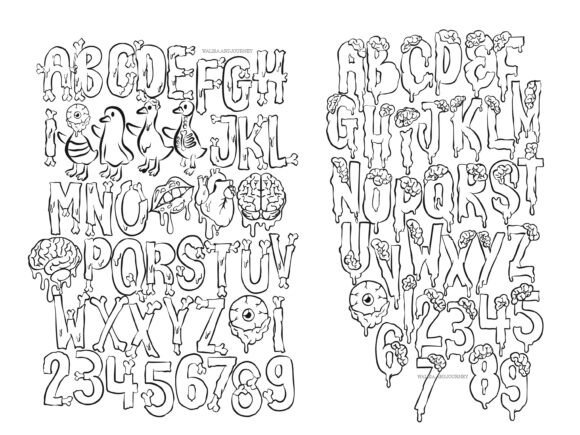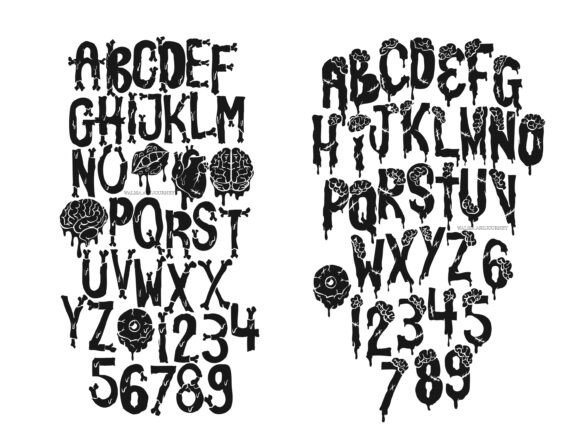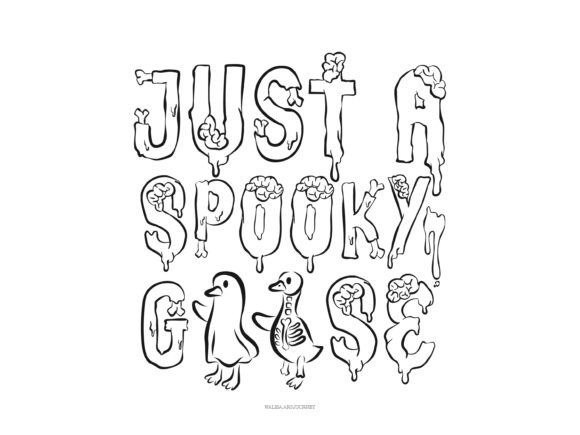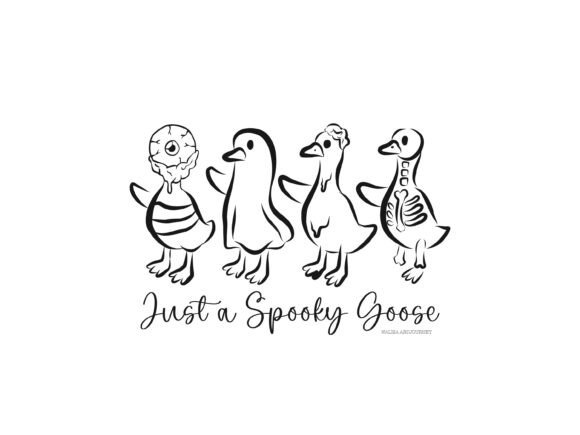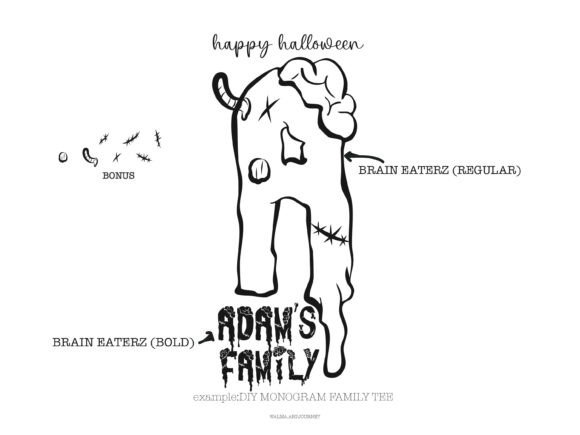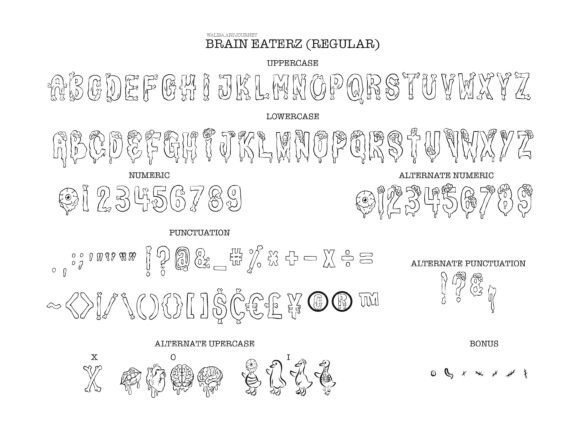
Introduction to Brain Eaterz Font
Brain Eaterz Alphabet Font is a hand-drawn, dripping zombie lettering set perfect for your Halloween projects.
This unique zombie-style font features gooey green letters, melting brains, and spooky bones — ideal for T-shirt designs, party invitations, stickers, or digital artwork Each letter is crafted with a creepy yet fun look, making it great for kids’ Halloween designs, spooky quotes, and horror merch.
Key Features of Brain Eaterz Font
Why Choose Brain Eaterz Font?
Brain Eaterz Font offers exceptional quality and versatility, making it a valuable addition to your design toolkit. Whether you’re creating for personal projects or commercial use, Brain Eaterz Font delivers professional results.